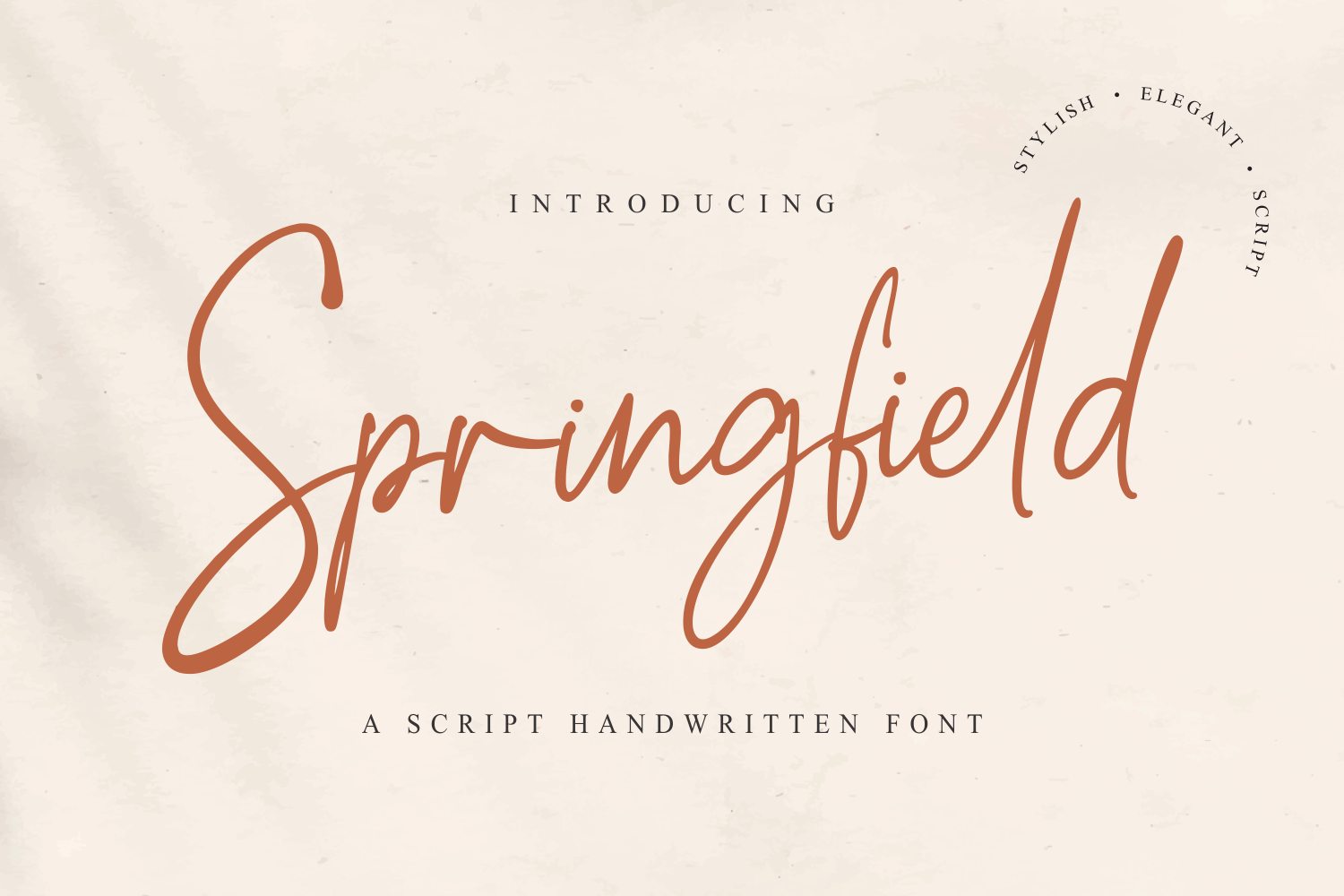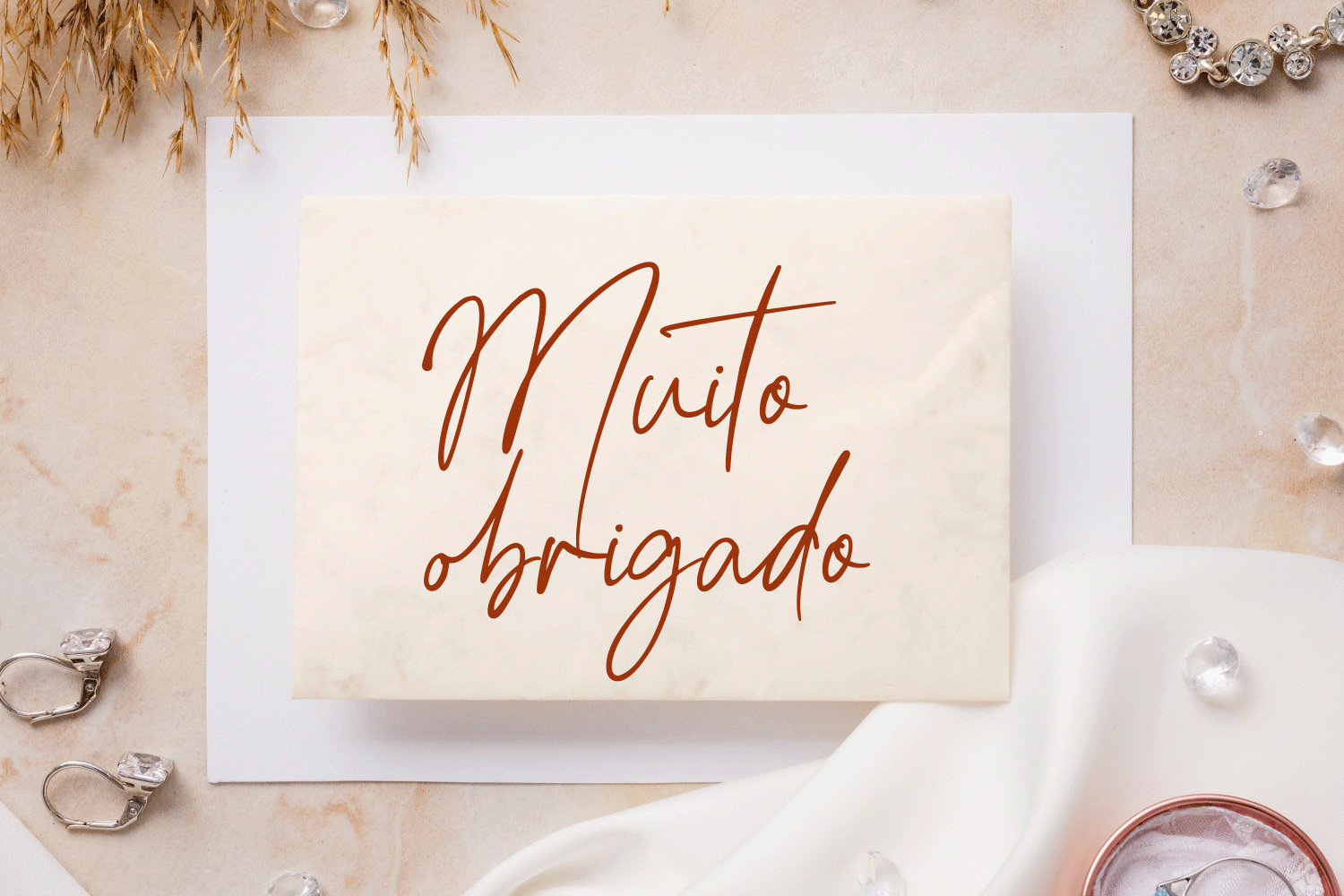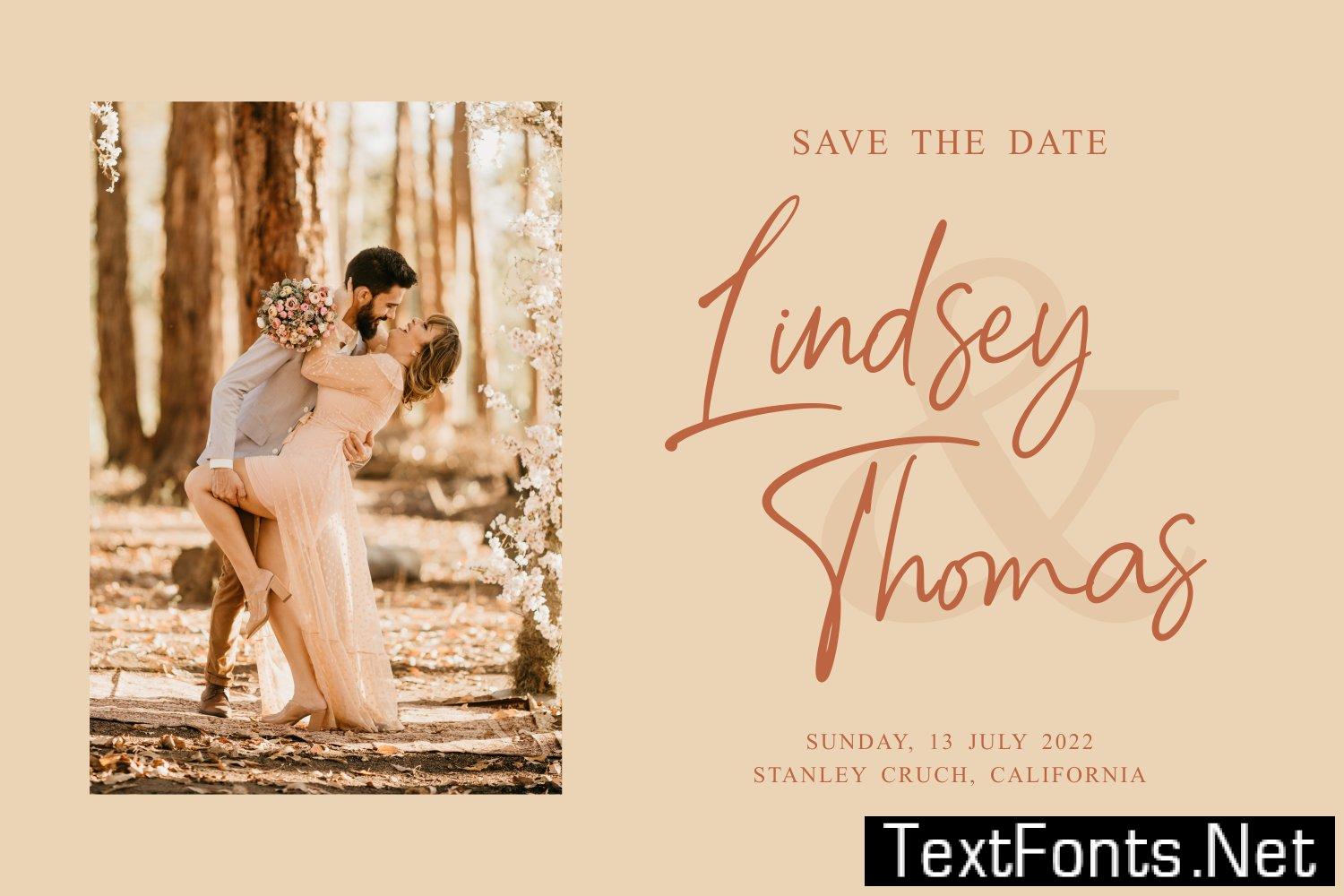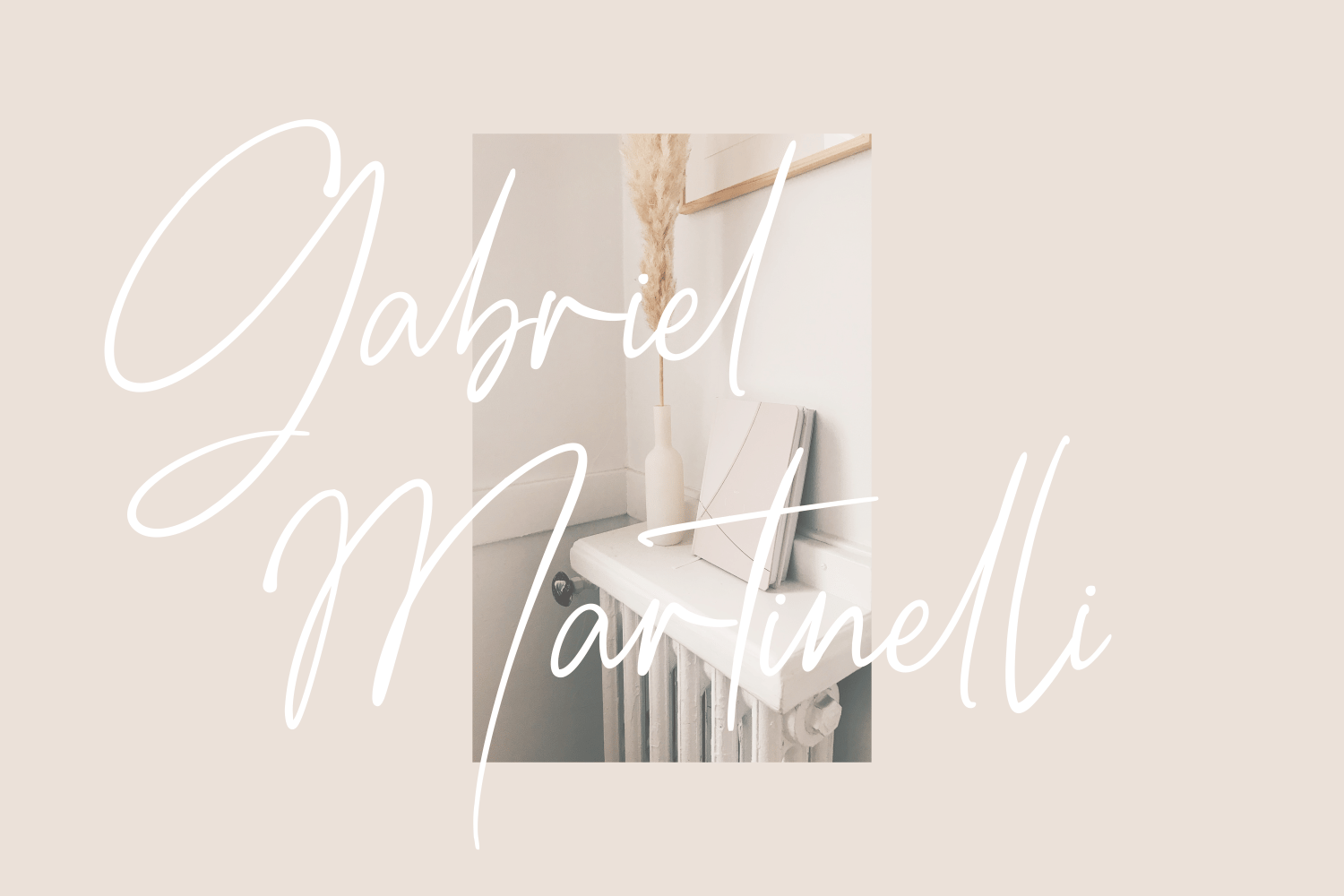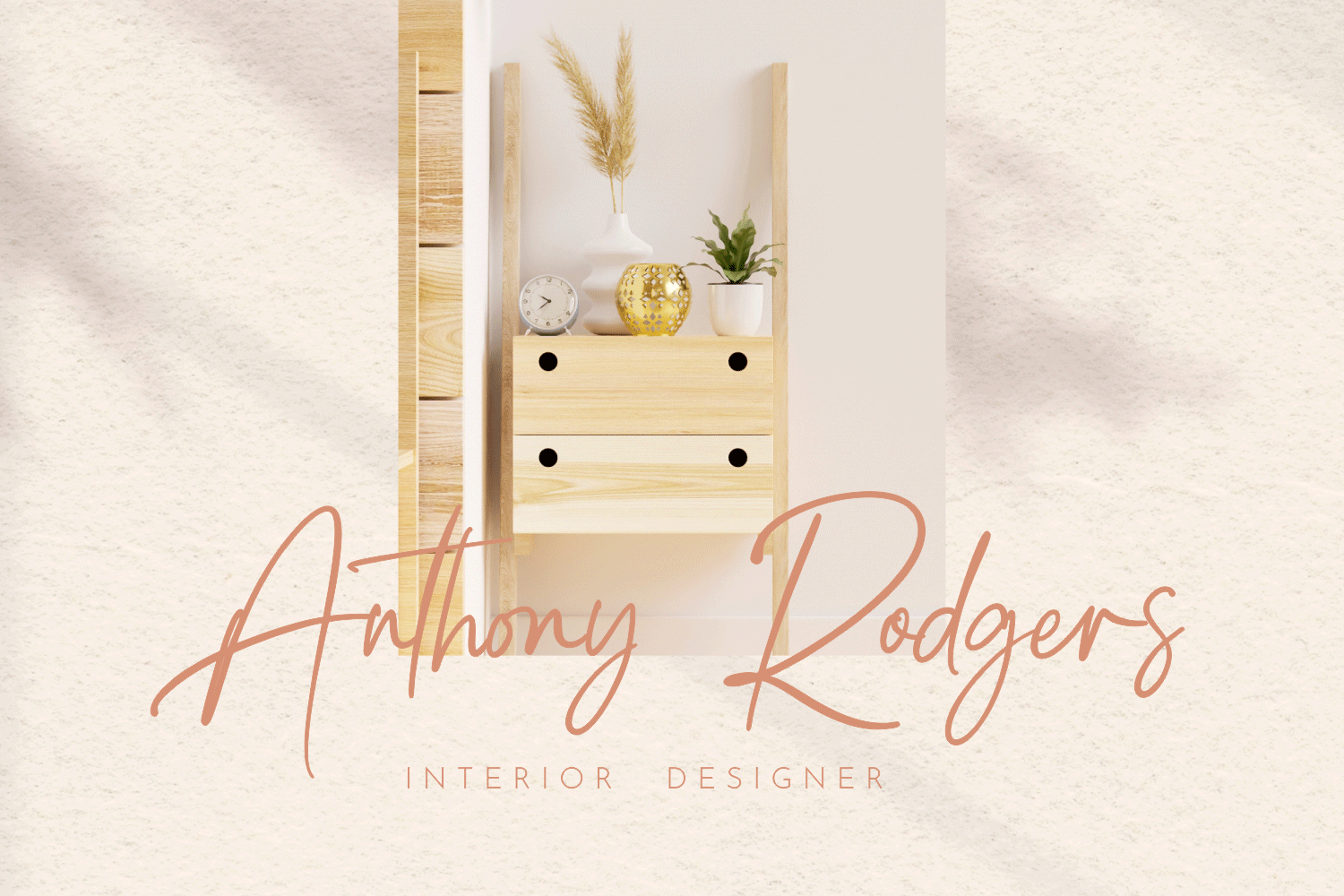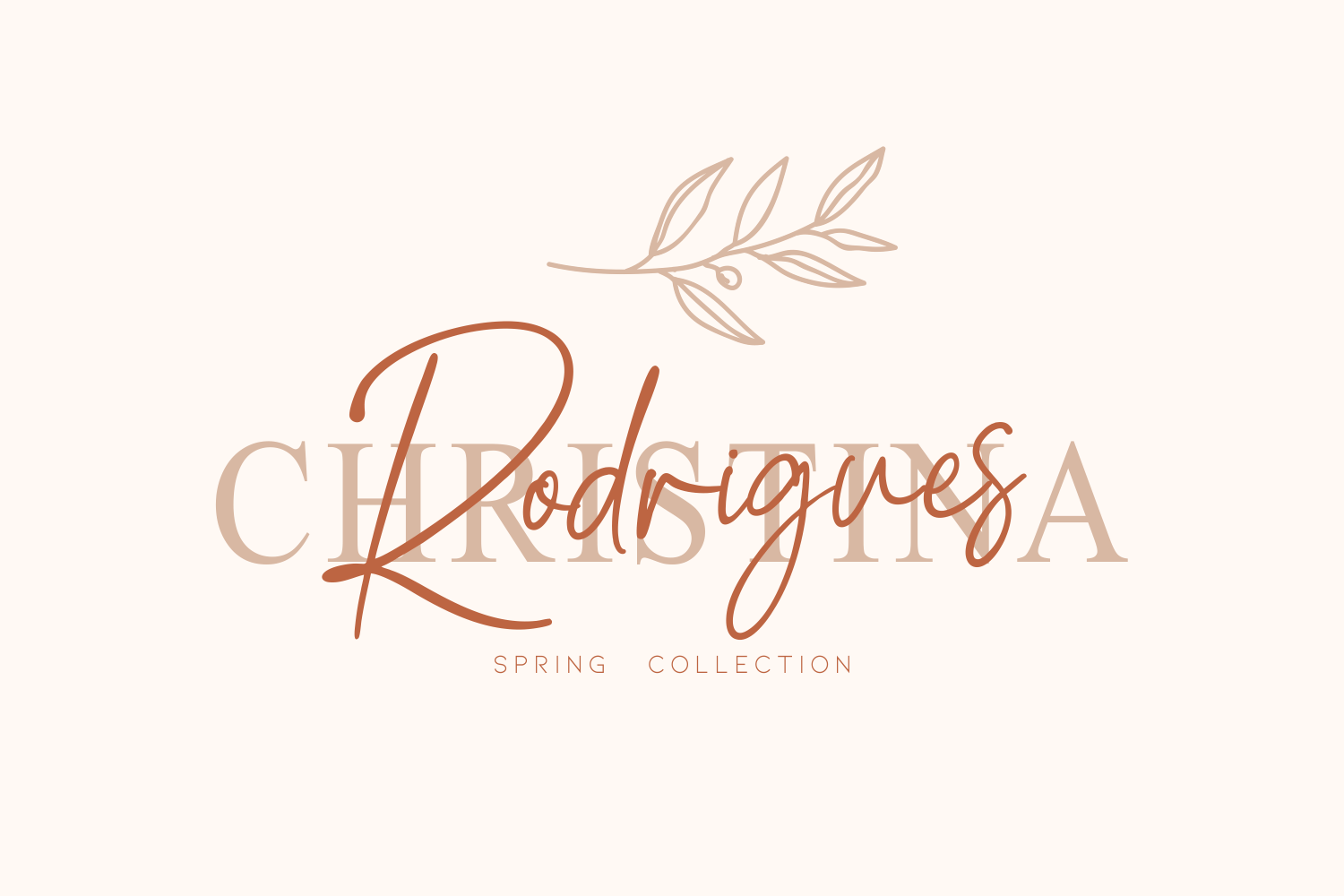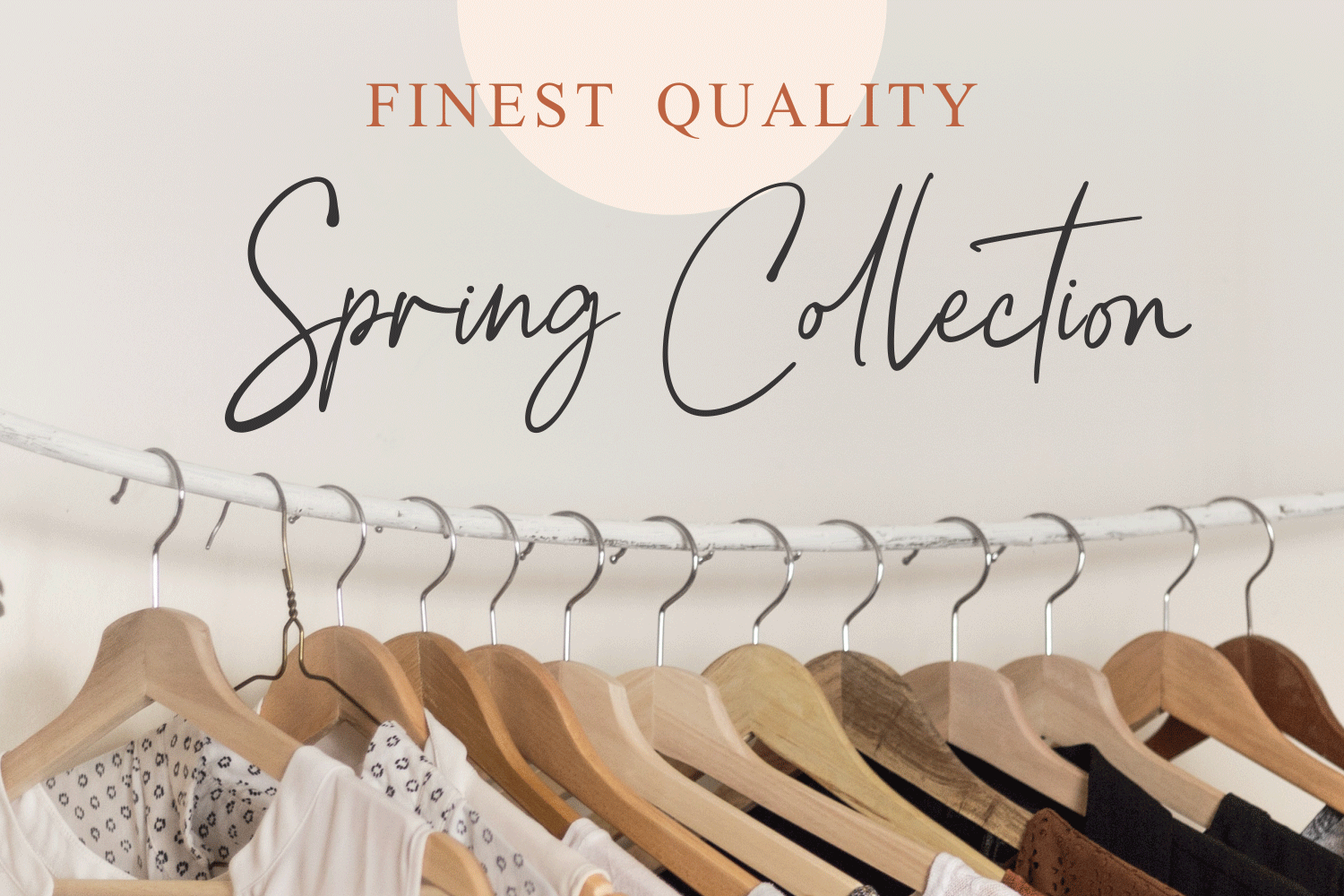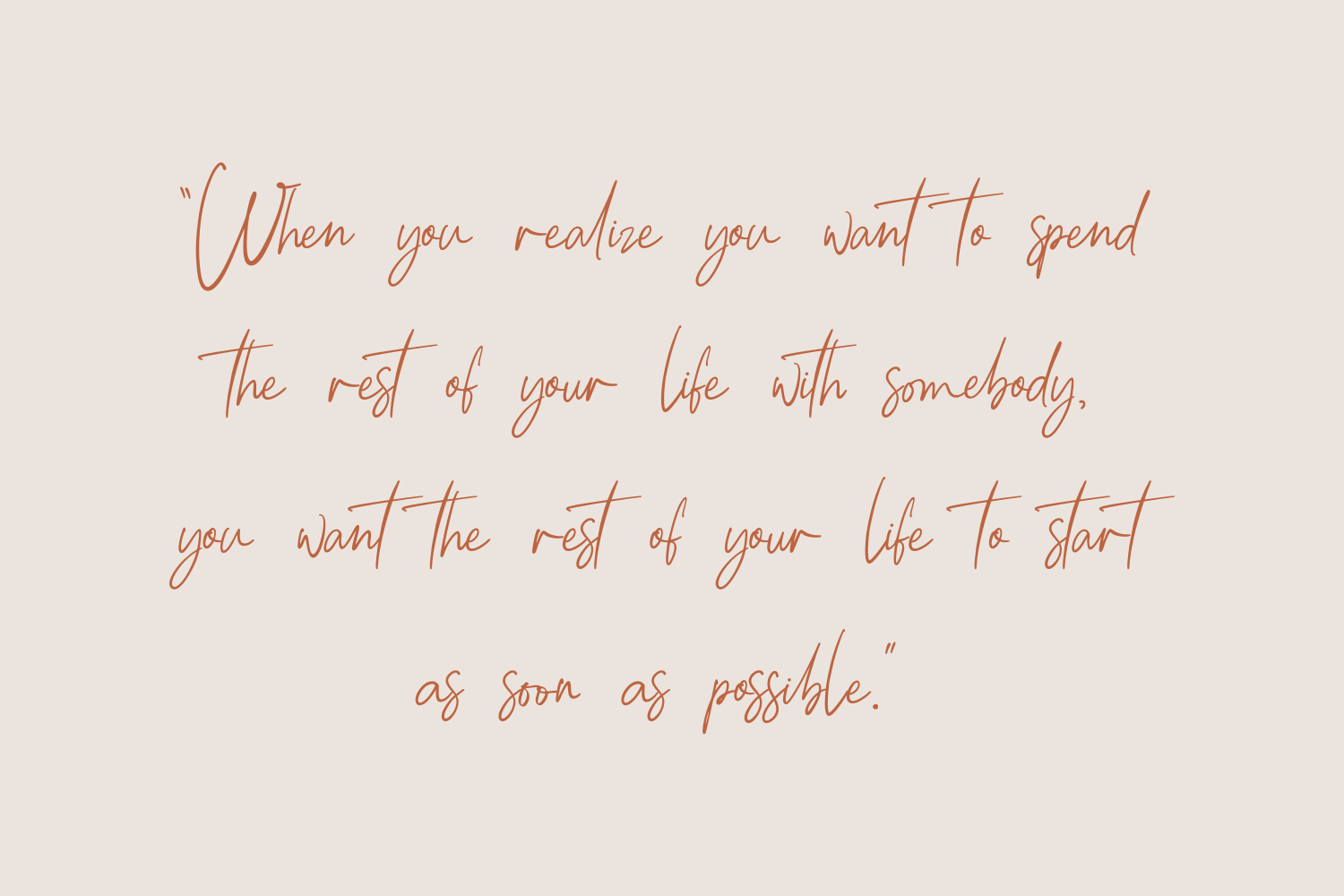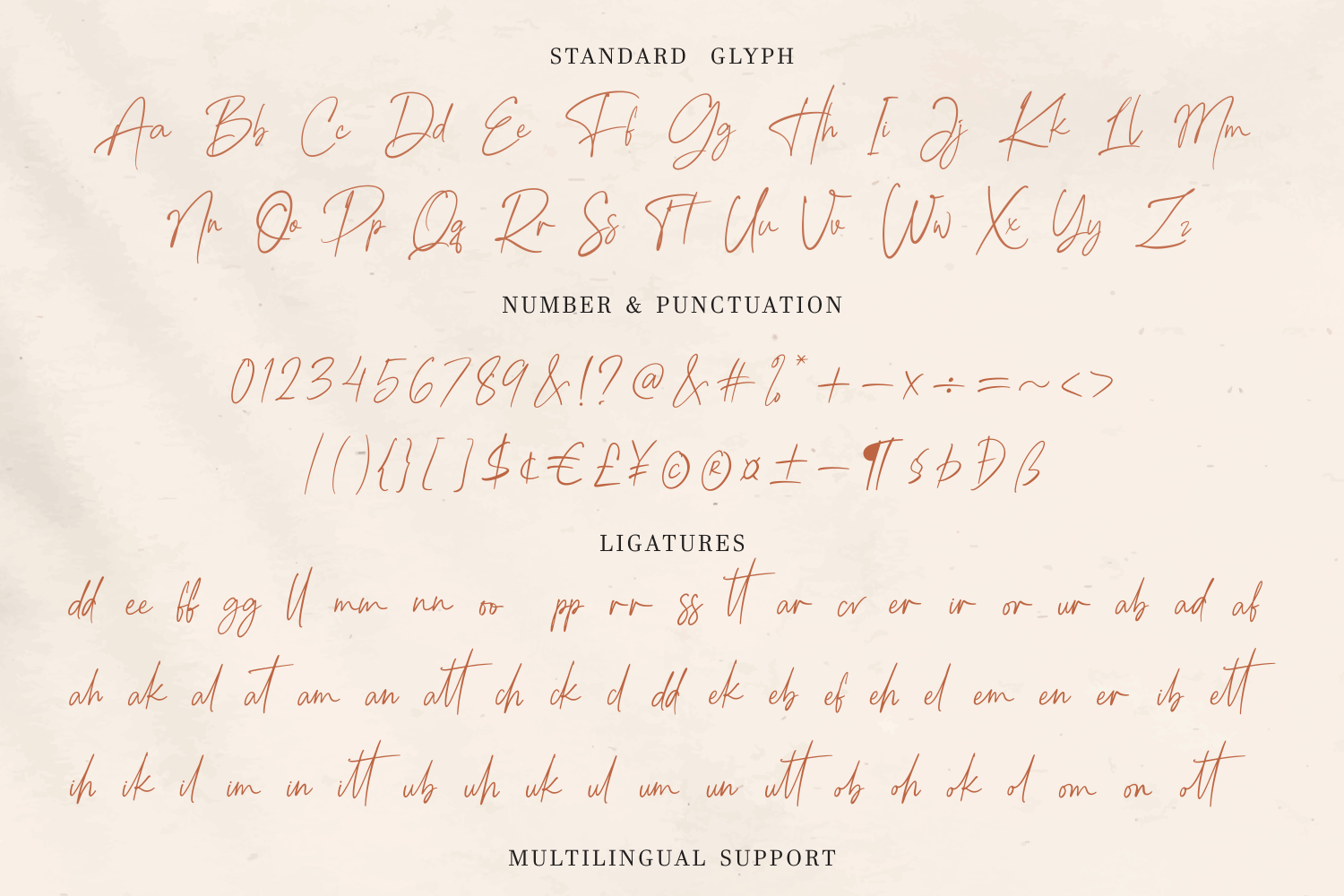
Meet Springfield, an authentic and casual signature font with a beautiful handwritten style. Springfield exudes elegance and a flowing grace, making it the perfect choice for designs that require a personal touch.
Springfield looks stunning on wedding invitations, thank you cards, quotes, greeting cards, logos, business cards, and any project that needs a handwritten touch. It features a varying baseline, smooth lines, gorgeous glyphs, and stunning alternates that enhance the visual appeal of your designs.
PUA encoded for your convenience, Springfield allows easy access to all glyphs and swashes, ensuring effortless customization. Fall in love with its incredibly versatile style and use it to create spectacular designs. Whether it’s for crafting, branding, or any other project, Springfield adds a personalized and elegant touch that will captivate your audience.